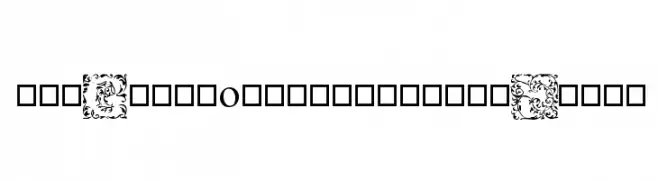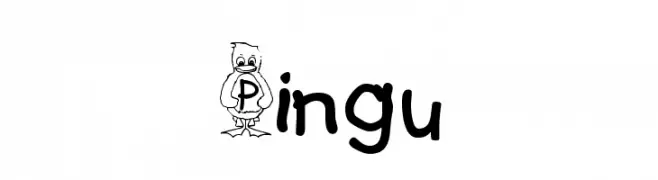
A dotted font ideal for educational and playful design projects.
A classic serif font with high contrast and elegant letterforms.
An ornate, decorative font with intricate floral embellishments.
A Morse code-inspired font using dots and dashes for each character.
A classic serif font with elegant, elongated letterforms and sharp serifs.
A whimsical font with characters integrated into penguin illustrations, perfect for playful designs.
A bold, rounded dingbat font with diverse pictograms and playful shapes.
A modern, rounded font with uniform stroke width and excellent readability.
A clean, structured font ideal for educational and handwriting practice.
An elegant oblique font with smooth, flowing letterforms and a dynamic style.